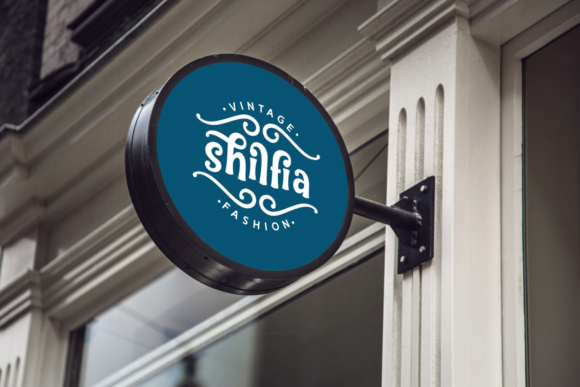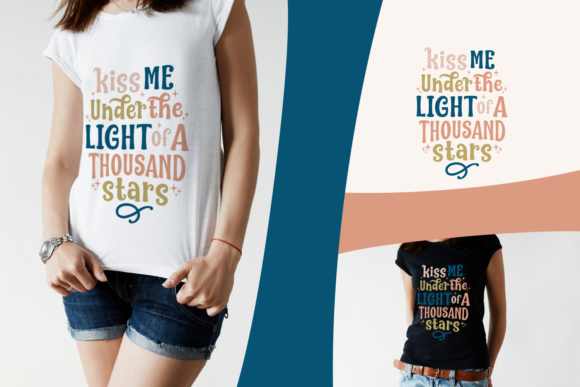
Nilky & Miky Typeface
Dear Font Lovers! A beautifully display font. Introducing Nilky & Miky Font. Nilky & Miky is a beautifully whimsical display font, ideal for use wherever imaginable! This bold and well-weighted display has a bouncy, swashy retro look that works well in apparel and merchandising, but lends itself to a larger array of creative projects.